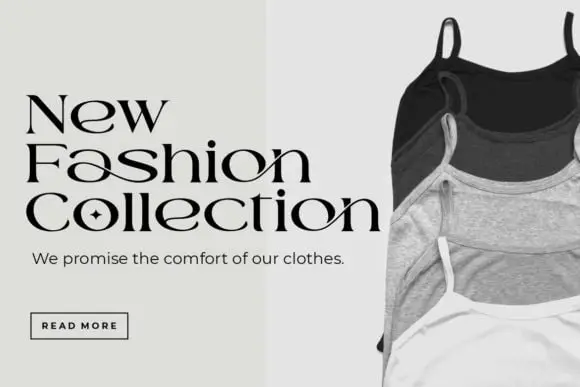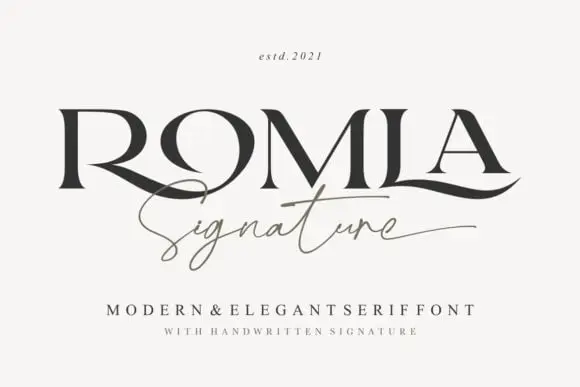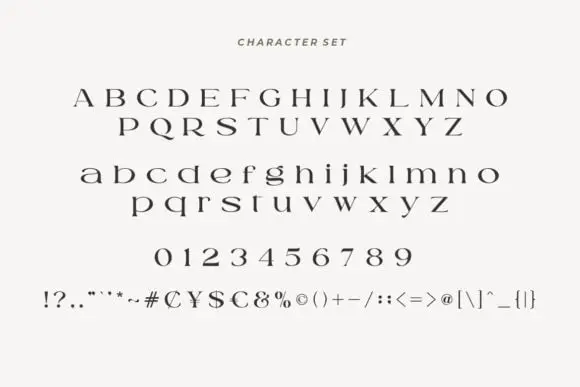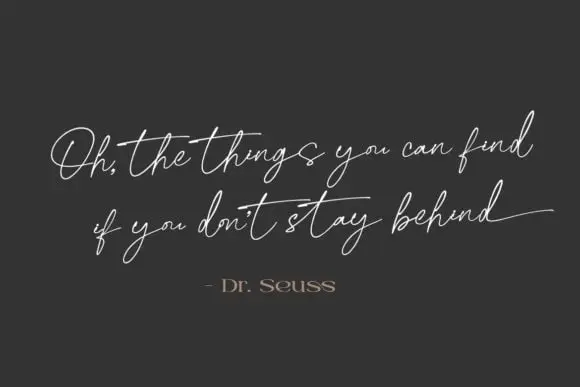
Hansco-Romla Signature Font
The Hansco-Romla Signature Font is a beautifully crafted typeface that embodies elegance and sophistication. Ideal for personal branding, logos, and various print applications, this font adds a touch of uniqueness to any project.
• Style: Script
• Weights: Regular
• Perfect for invitations, business cards, and social media graphics.
• Utilize the font in branding projects to create a memorable impression.